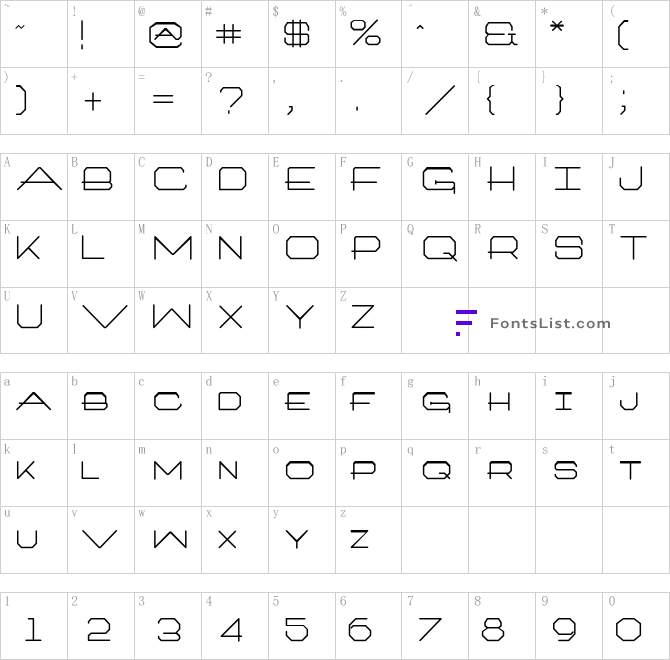
- Font Name:ArtlookinOneType
ArtlookinOneType.ttf is a very beautiful artistic font, ArtlookinOneType.ttf is widely used in the design and printing of various books and pictures,ArtlookinOneType.ttf has a strong visual impact,ArtlookinOneType.ttf is a commonly used font in newspapers, magazines and books, and is used in posters, e-commerce Poster design, store design, logo design, font design and other fields.ArtlookinOneType.